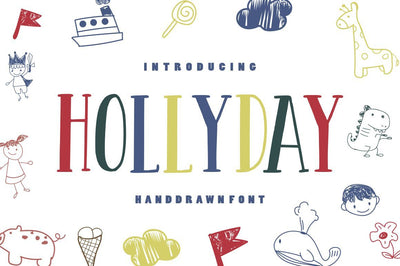
Hollyday – Handdrawn Font
Introducing: Hollyday
Hollyday is funny handlettering font make from handlettering ideas in typeface. This font includes full of Alphabetical glyphs, Numerals, and punctuation. This is so perfect for invitations, monograms, wedding, fashion, branding, label, handlettering or logotype.
• Very great for branding, logotype, handletteing, invitations, or fashion branding.